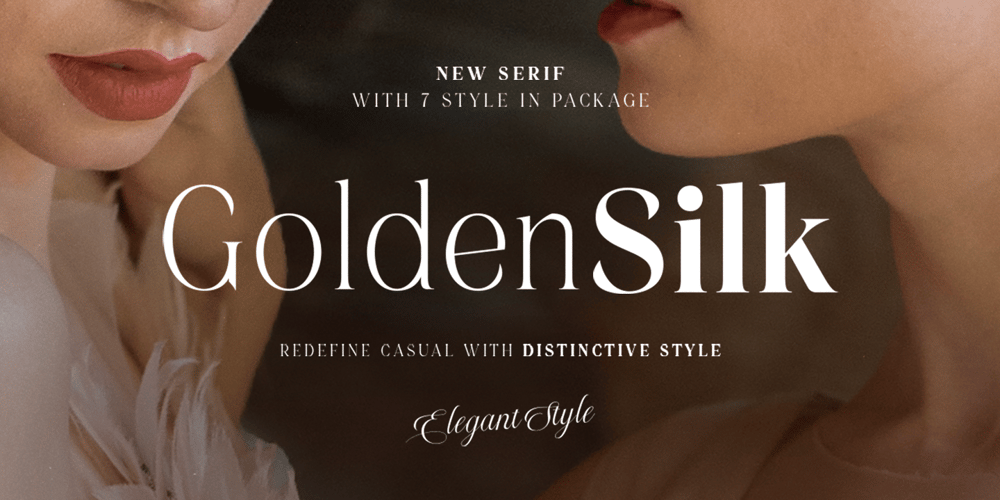
Golden Silk
Golden Silk font
Golden Silk Font Family was designed by Sarid Ezra, Dzikrul Aulia and published by Bale Type. Golden Silk contains 7 styles and family package options. Golden Silk is an elegant and classic serif font family with stylish and modern looks. With 7 weight including light, regular, medium, semi bold, bold, extra bold, and black that you can choose for your design. You can use the light and regular for clean and minimalist looks or bold and extra bold for strong impressions. This font also support multi language.